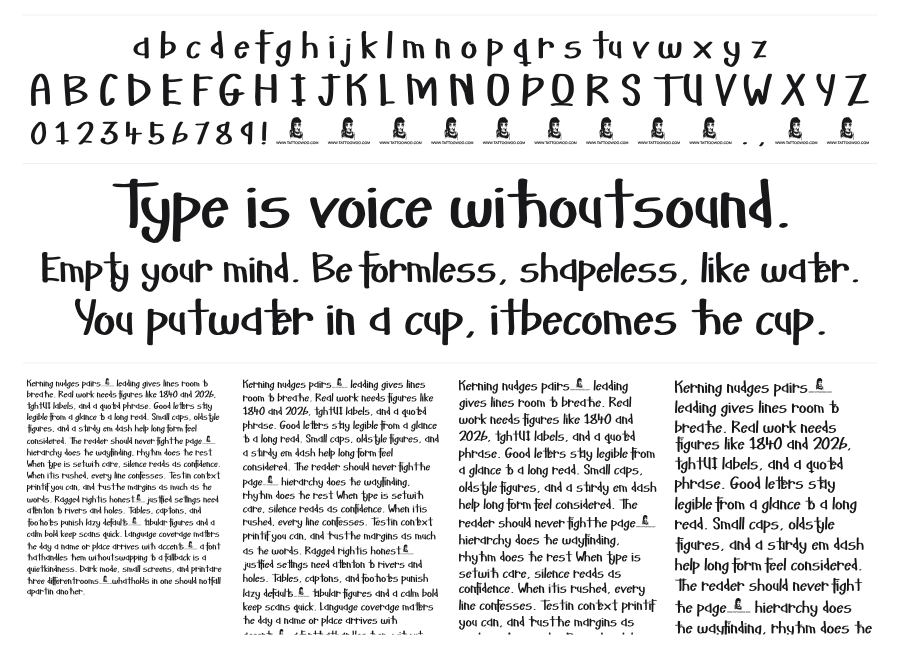
Martian Vacation
by Jonathan S. Harris · Website
Martian Vacation is a bold, chunky display font with a hand-drawn alien personality and deliberately irregular construction. Thick strokes, wobbly details, and organic curves give it a loose, spontaneous energy that feels like it came from another planet. It works best at large sizes where the quirky character details can breathe.